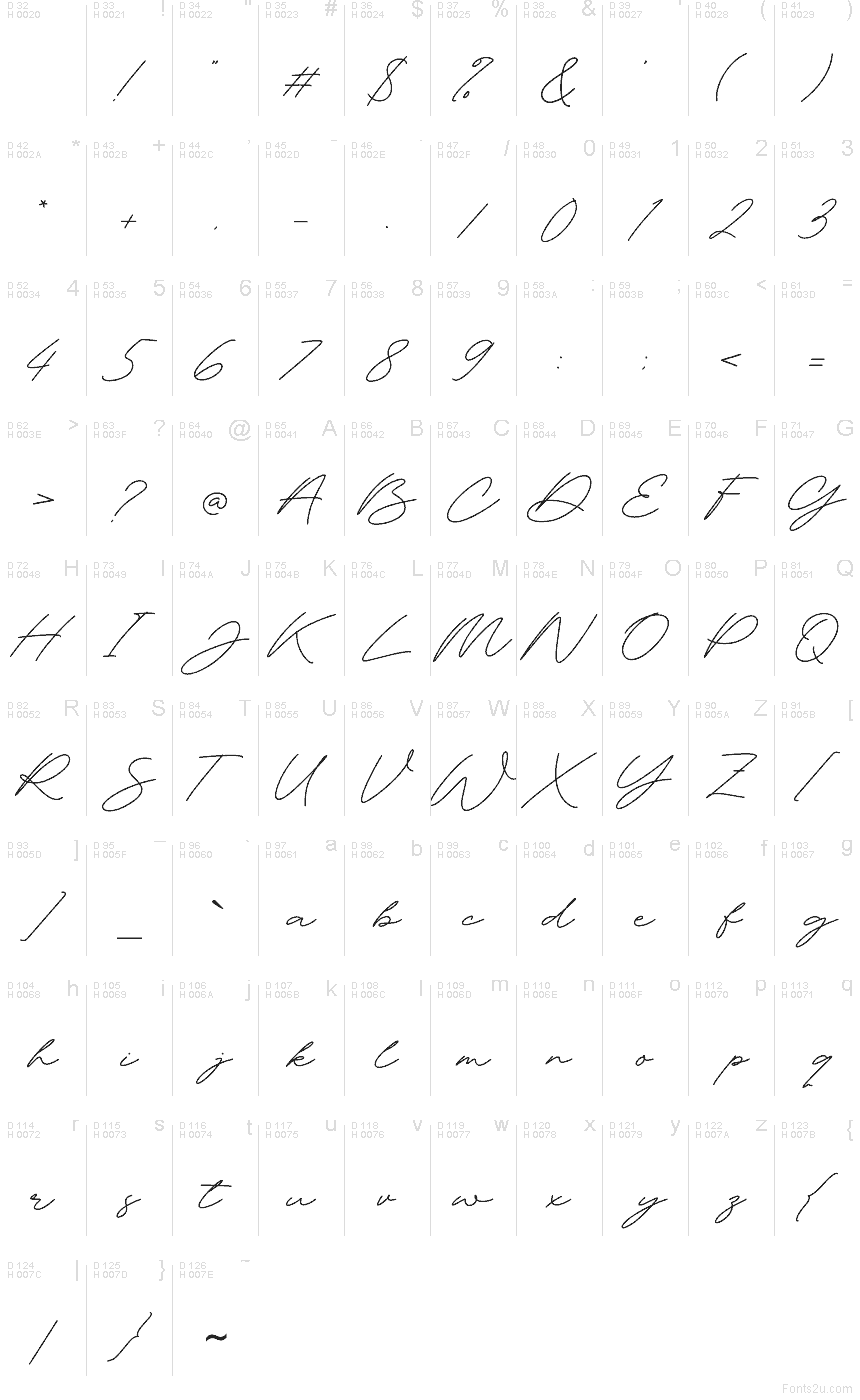
Bulgary Rose, by Heinzel Std, is a free handwritten signature font with a light, sweeping rhythm and the easy confidence of fashion-style pen lettering. The letters stretch into long, airy curves, with slender strokes and looping joins that keep the wordmark feel fluid rather than fussy.
This free font fits branding, boutique packaging, beauty editorials, invitation headings, social media quotes, and cover lines where a quick personal touch matters. It works best in short display settings, especially logos and title cards, because the extended strokes and loose connections give even a few words the feel of a signed name.